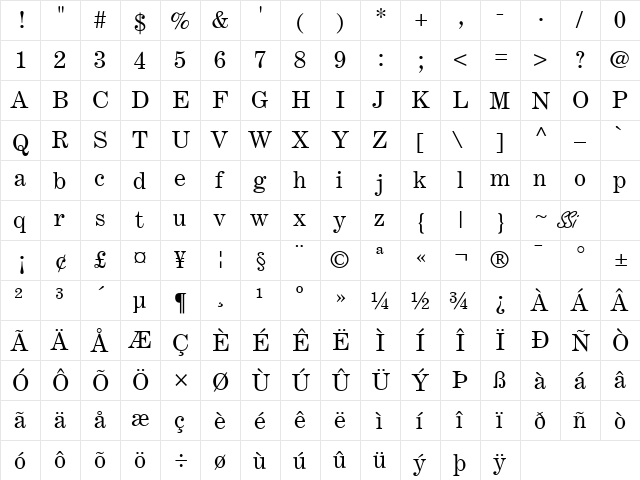
Century Expanded SSi Expanded
Design Context for Century Expanded SSi Typeface
Century Expanded SSi takes a measured approach to typography — its balanced proportions and neutral character make it a reliable workhorse for both digital and print work.